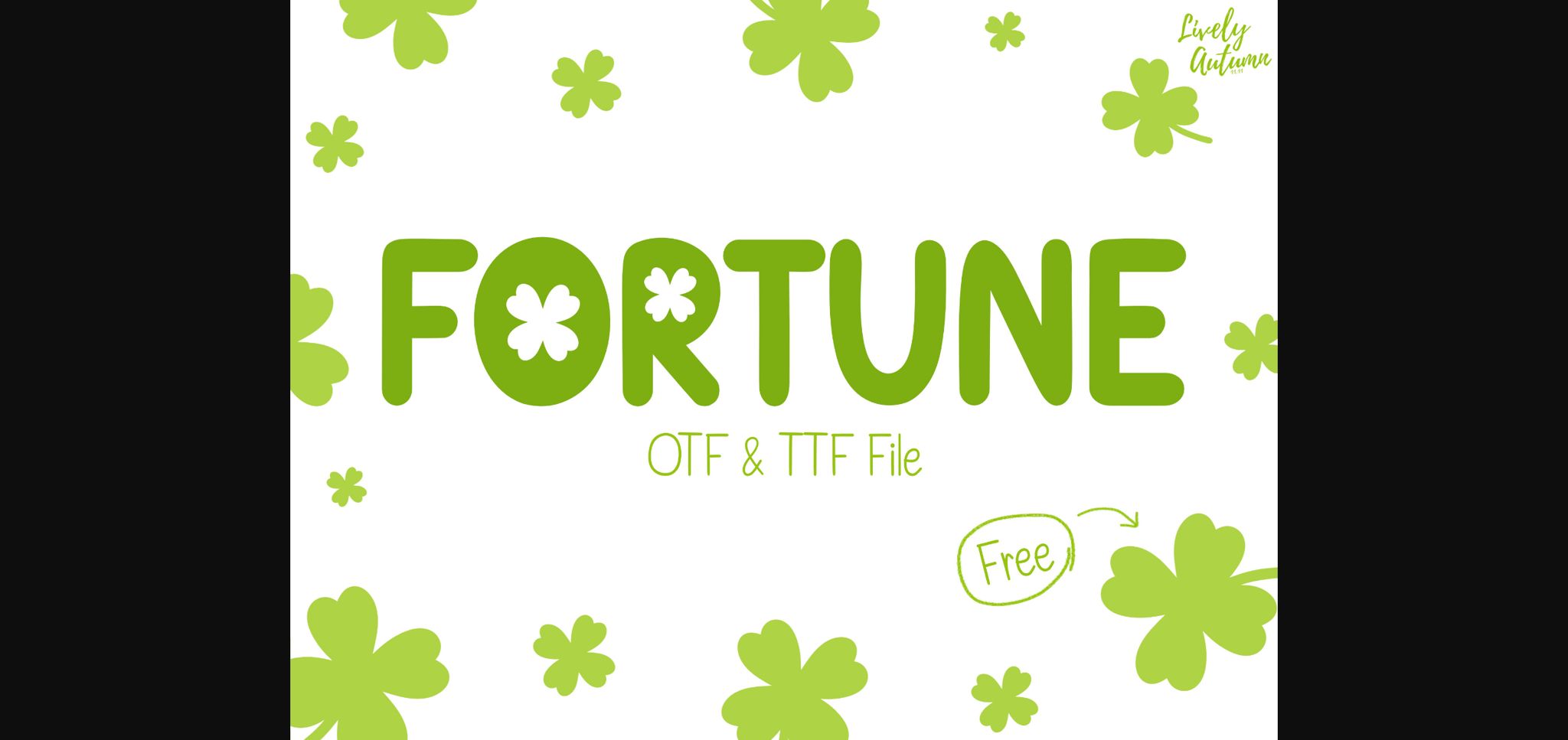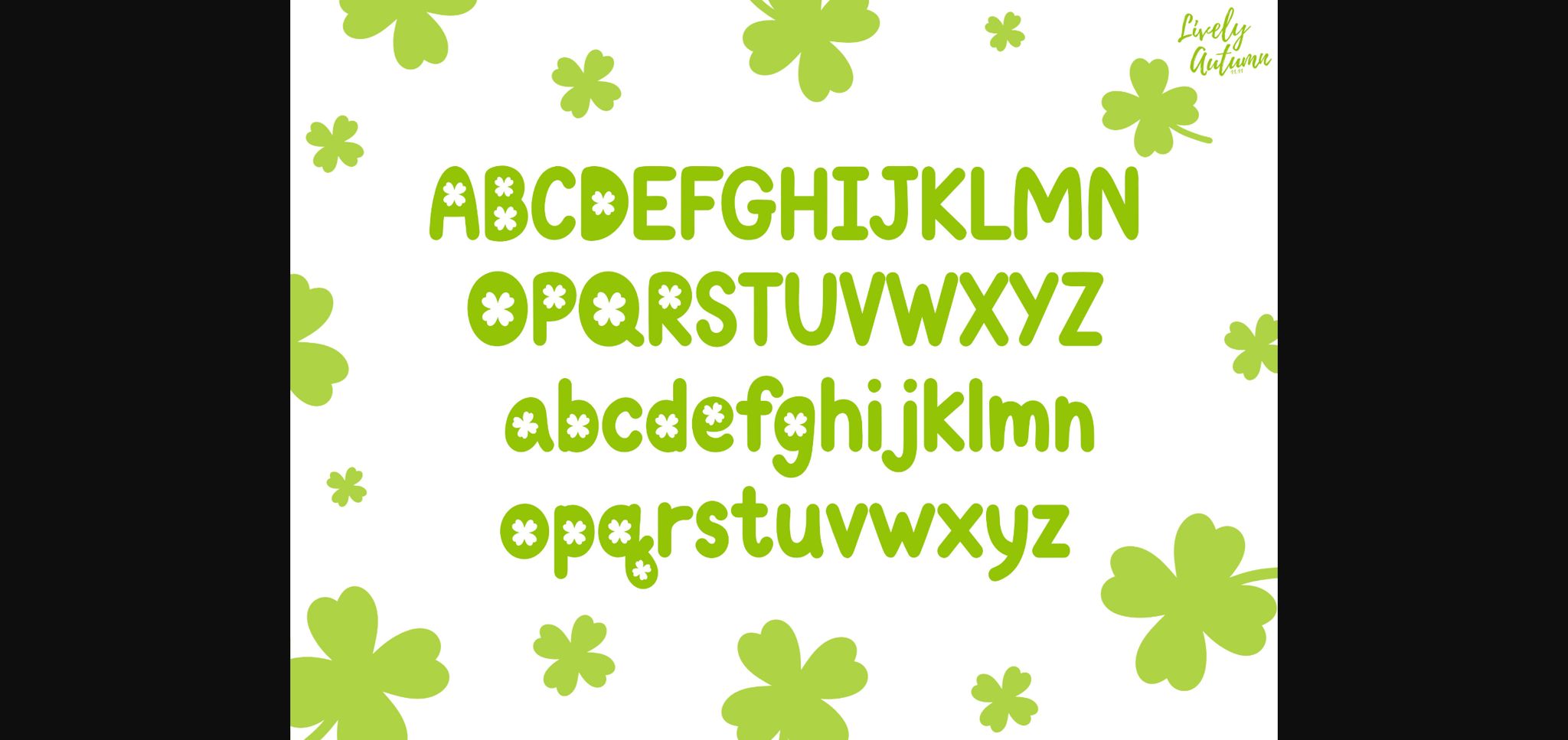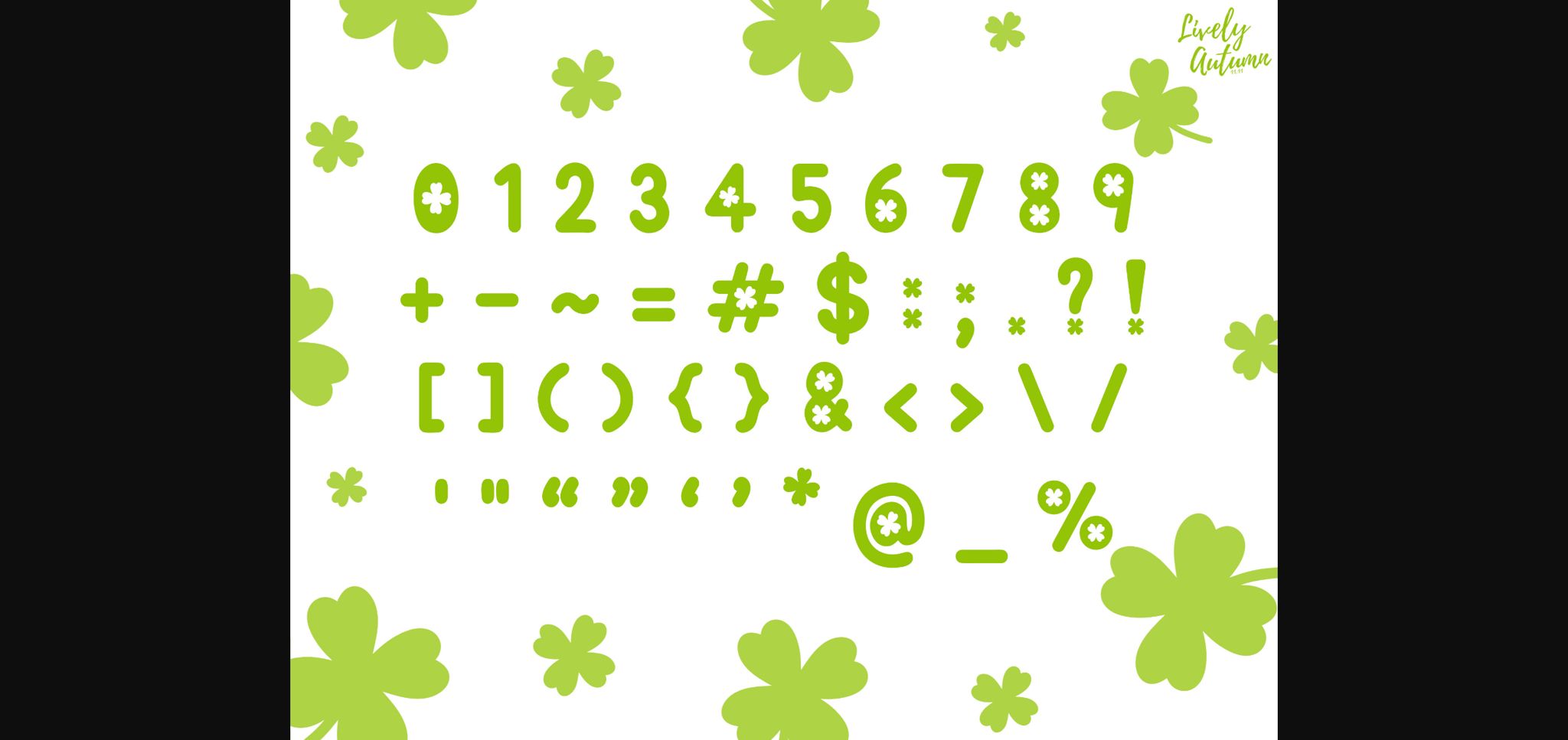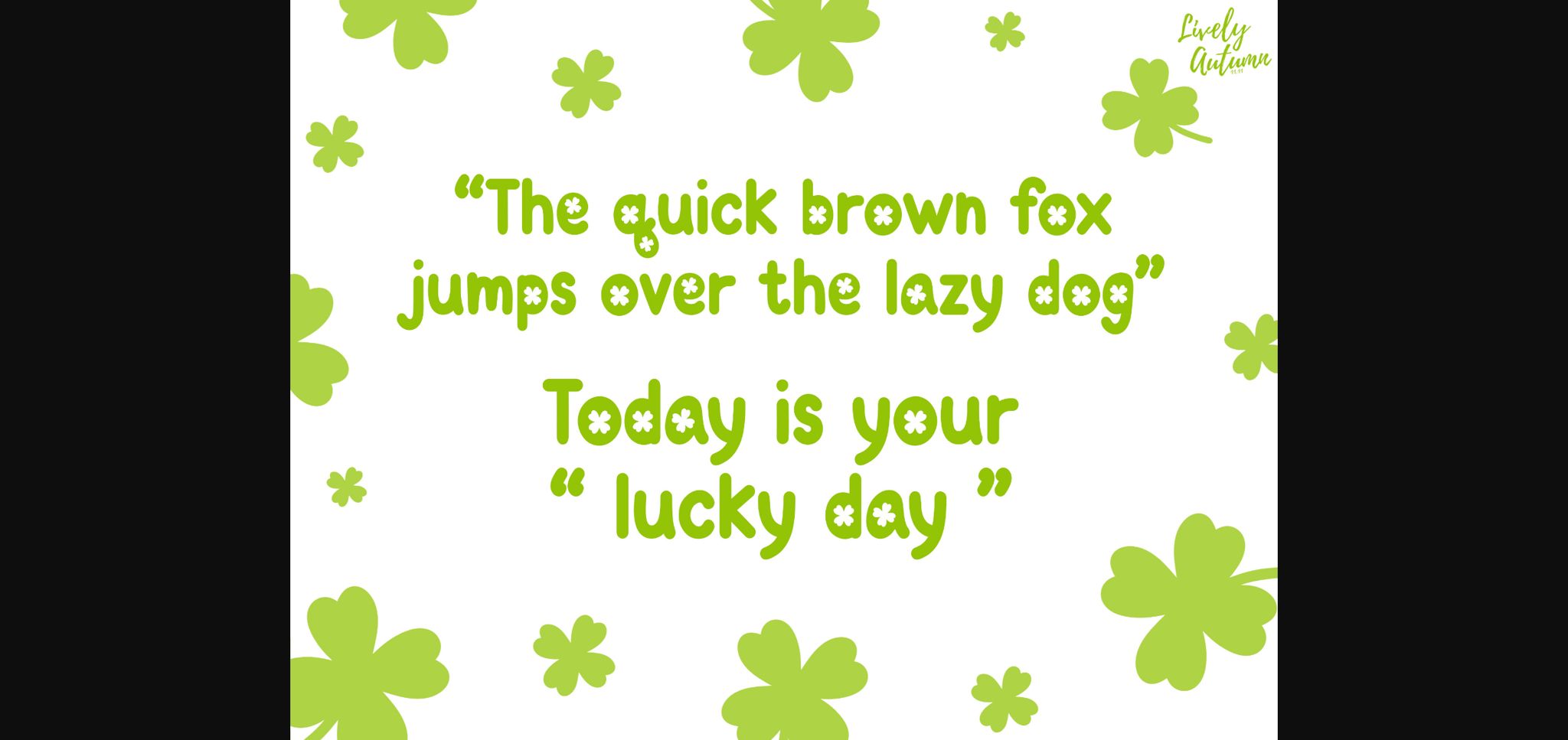
Fortune Font
About Fortune Font
Fortune is a cute and lucky sans-serif font adorned with clover leaves on some characters. Add it to your creative projects and enjoy the results!